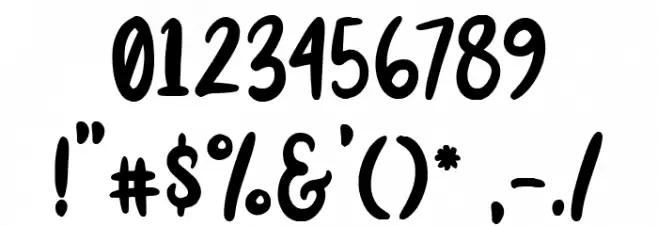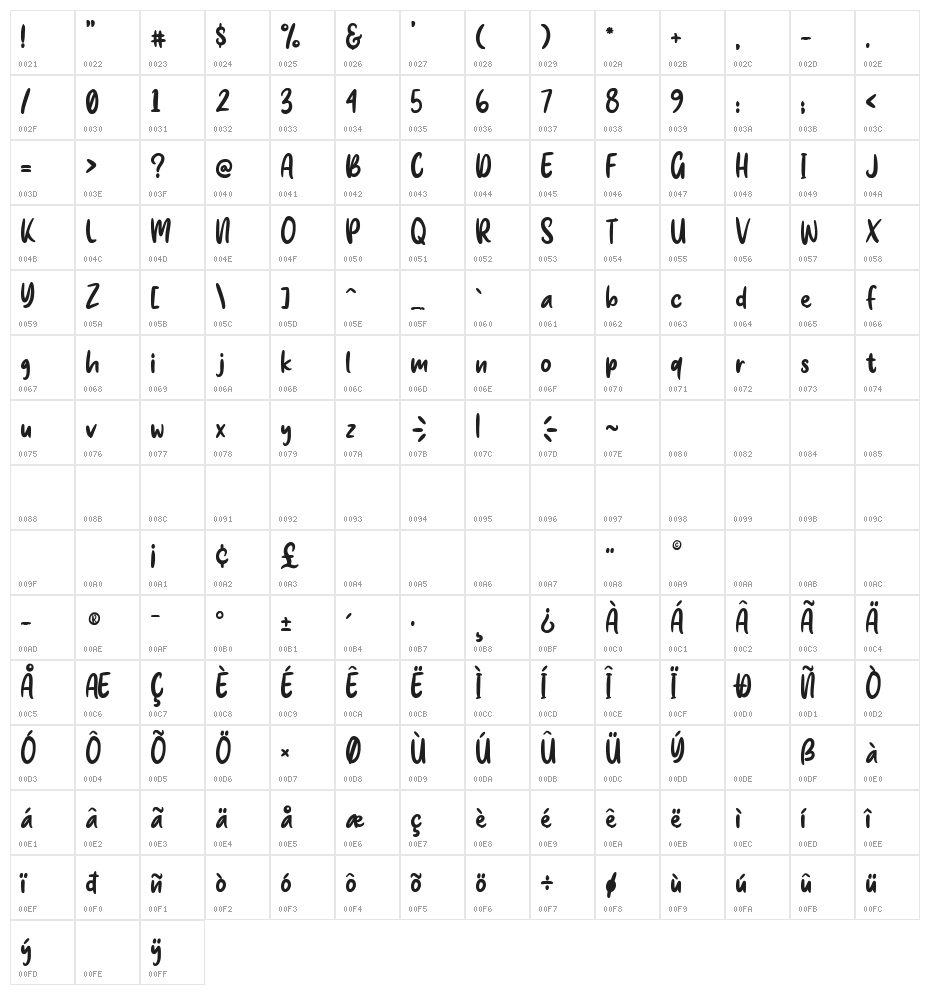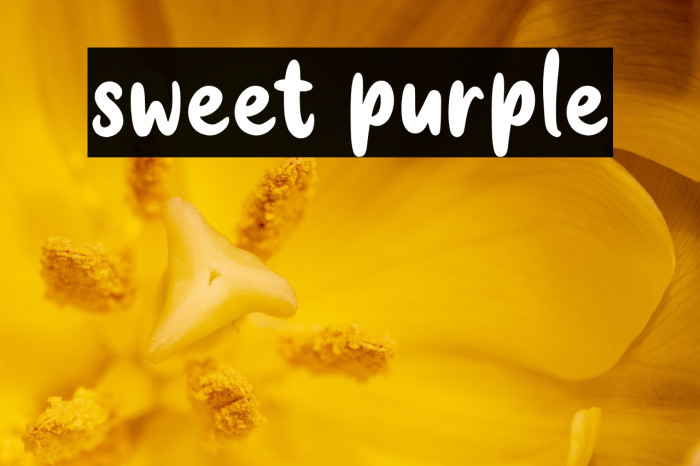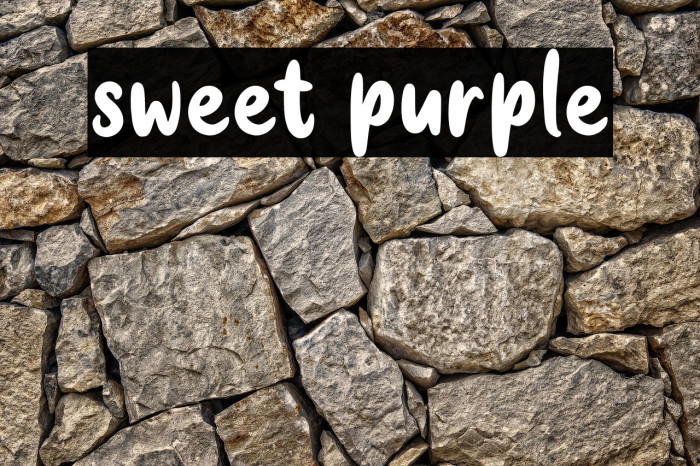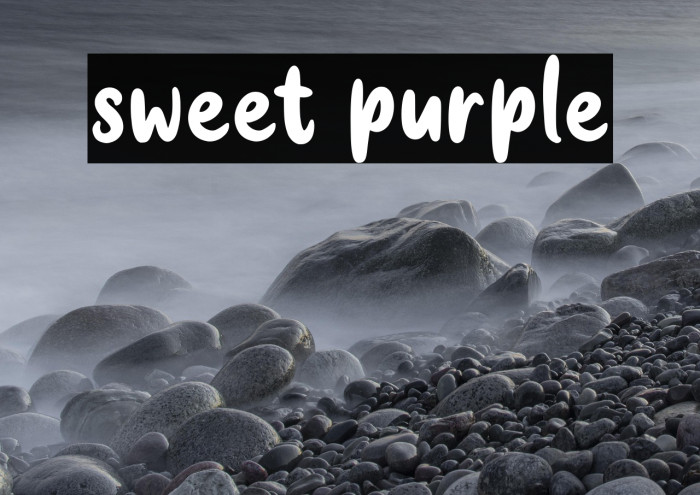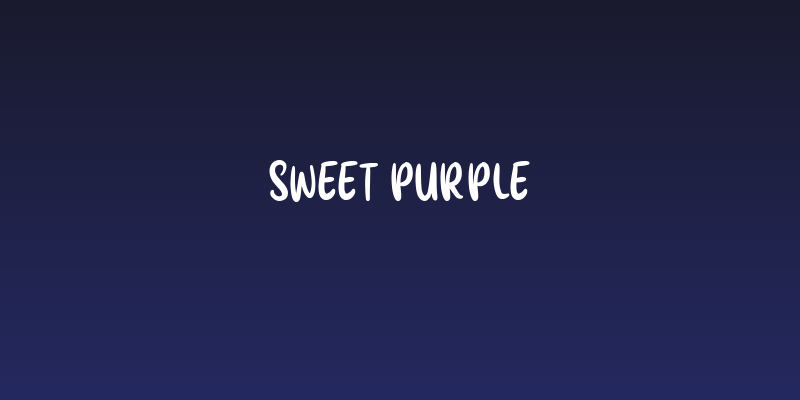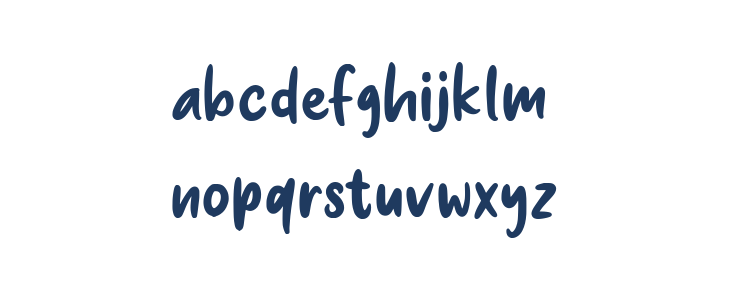
sweet purple Font
sweet purple Description
This font features a playful and energetic style with smooth, rounded edges and a handwritten appearance. The letters are bold and slightly condensed, giving them a strong presence while maintaining a friendly and approachable look. The uppercase and lowercase characters are well-balanced, with a consistent stroke width that adds to the overall harmony of the design. The numerals and special characters are crafted with the same attention to detail, ensuring a cohesive look across all elements. This font's lively and informal style makes it ideal for projects that require a personal touch.
| Use Case | Headlines, Logos, Informal text |
| Proposed Projects | Greeting cards, children's books, playful branding, and social media graphics. |